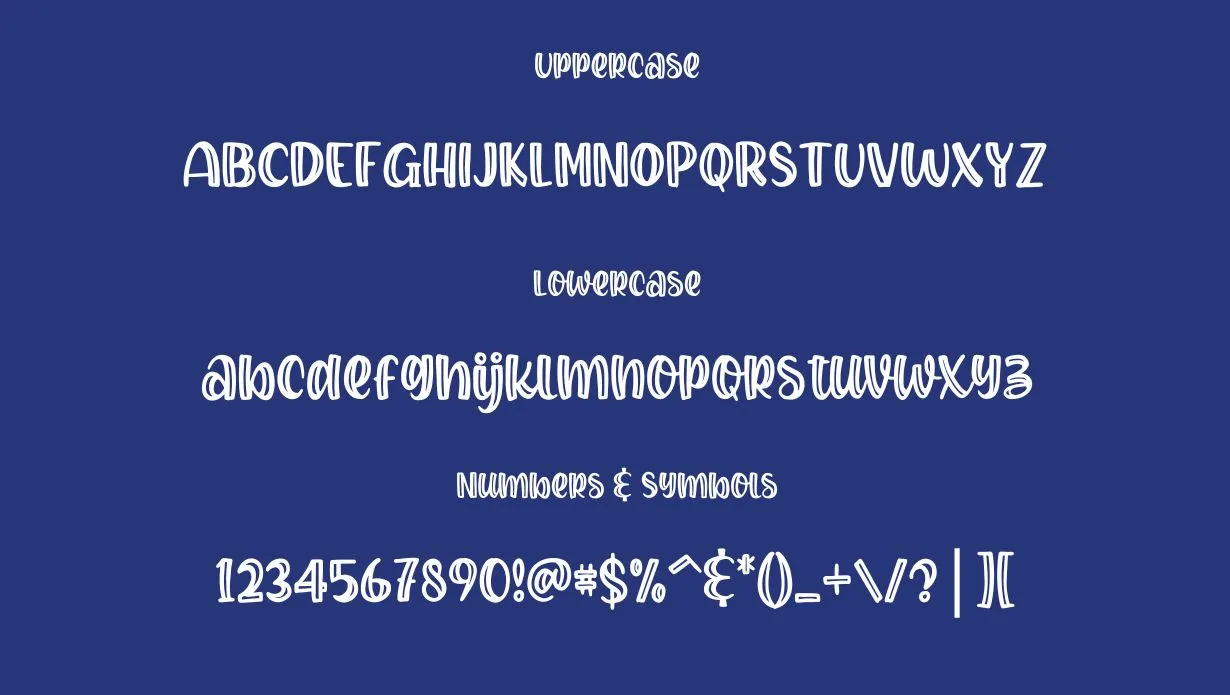
Baby Monkey is a fancy type of cartoon font. It was designed by Bangkit Tri Setiadi and manufactured by Blankids Studios. It has a very amazing double outline characters funky look. You can make attractive kids’ projects by using this font. It can be used to design cartoon movies, Stationery items, kid’s room decorations, and much more.
It has 90 characters, 94 glyphs, and 1000 units per Em. The weight of the font is Semi-bold and its width is medium (normal).
| Name | Baby Monkey Font |
| Designer | Bangkit Tri Setiadi |